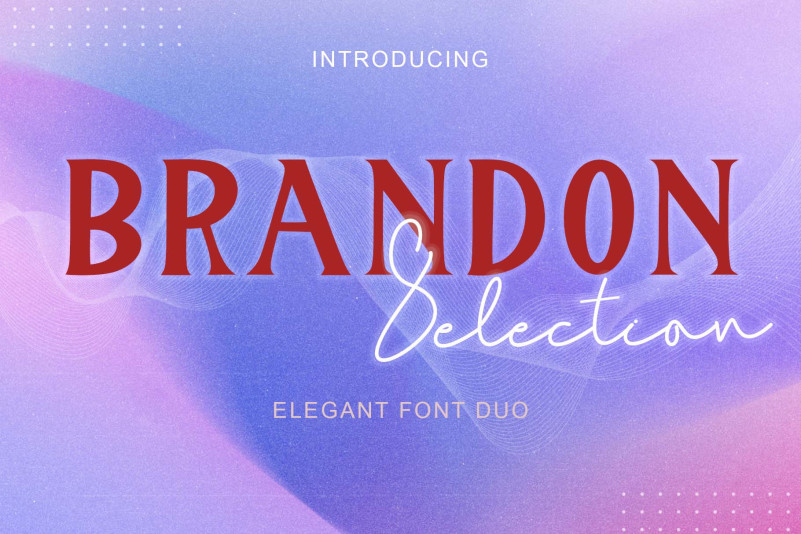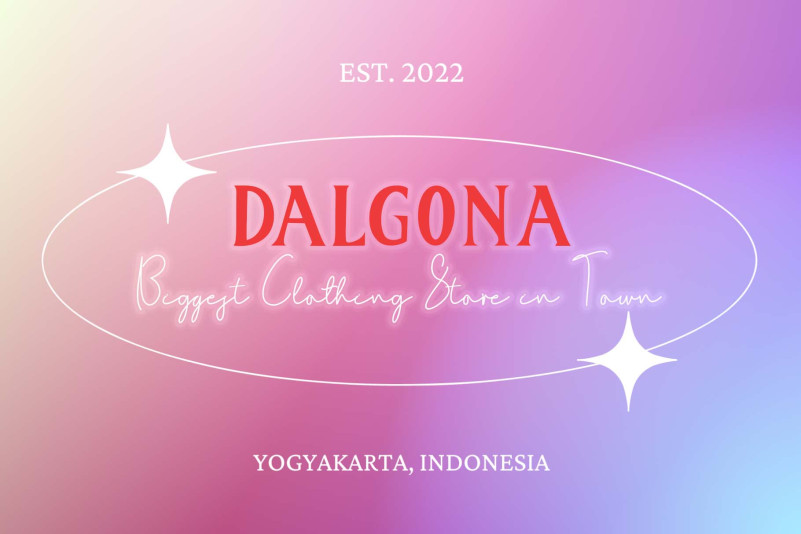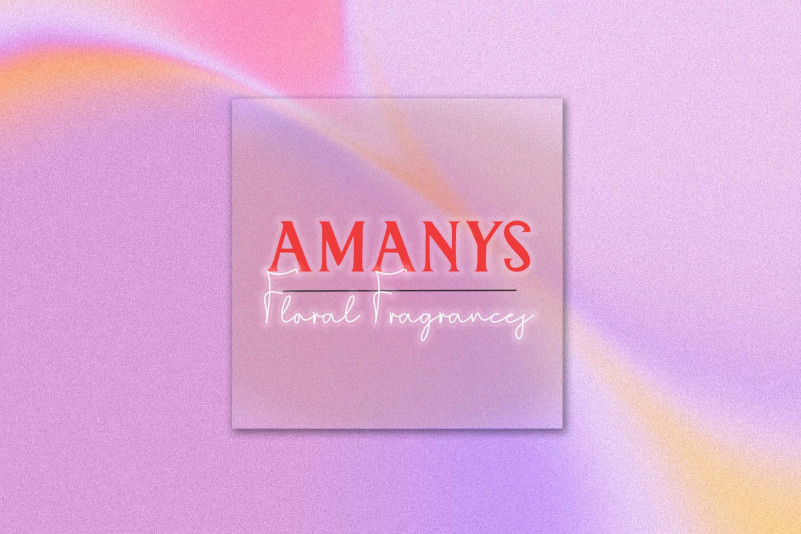
Brandon Selection Font
Brandon Selection Font is two fonts that collaborate to become an elegant and modern duo font. This font is a combination of serif and monoline fonts that collaborate to become an elegant font. Equipped with uppercase, lowercase, numerals, punctuation, and multilingual support. It is suitable for logos, businesses, branding, banners, and more.